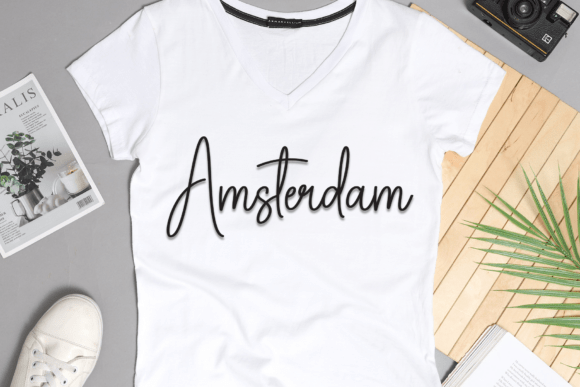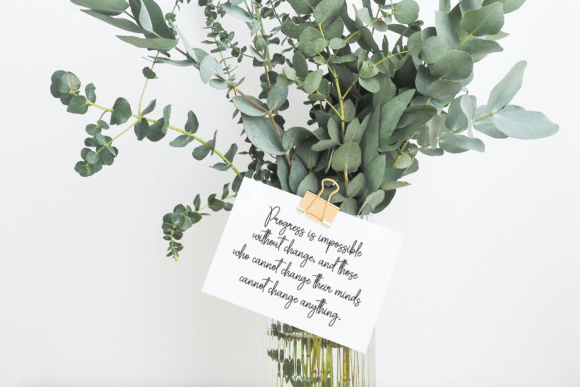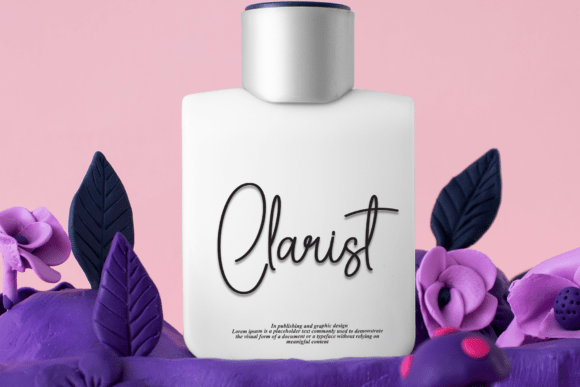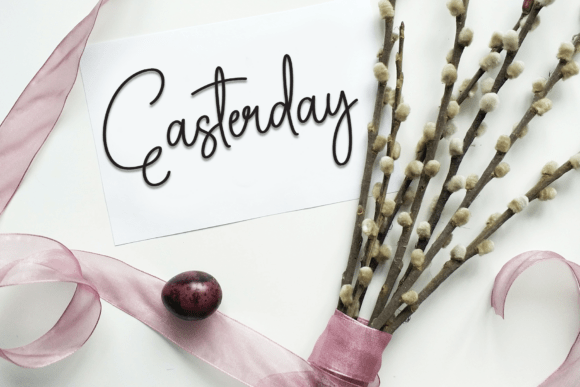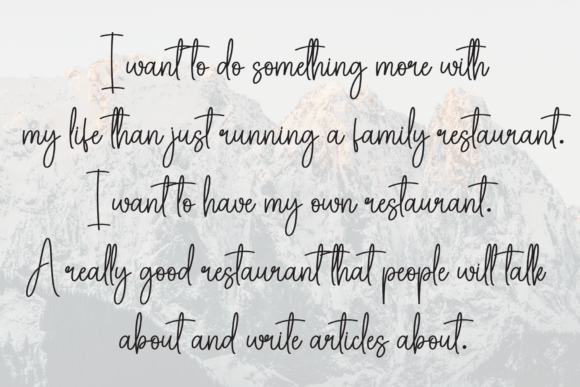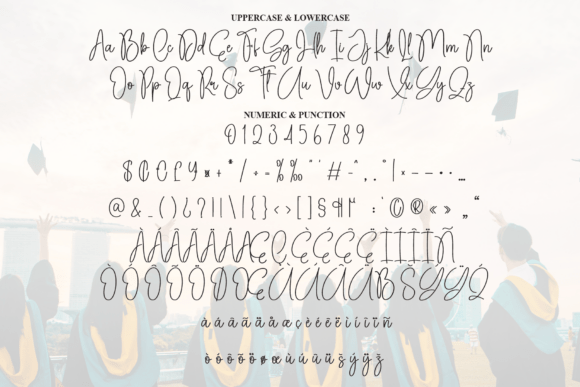
The Graduation Font: Elevate Your Designs with Elegance
Have you ever been working on a design project, and suddenly, you’re stuck on finding the perfect font? I recall a wedding invitation project where I spent hours searching for a font that exuded romance and sophistication. That’s when I discovered the Graduation Font, a stunning script font with swashes that instantly elevated my design game.
A Personal Review: What I Love and What to Watch Out For
- 💫 Elegant and flowing script with beautiful beginning and ending swashes
- 🎉 Perfect for romantic and luxurious visuals, such as wedding invitations and branding projects
- 👍 Highly versatile and works well for social media graphics, handwritten quotes, and more
- 💥 Adds an extra flourish to any design with its unique swashes
- 🤔 Some swashes might not work well with certain sentence structures or word combinations
- ⚠️ Limited use for body text or long-form content due to its decorative nature
The Story Behind Graduation Font: Designer Inspiration
The Graduation Font was designed with romance and luxury in mind. Its creator, a talented typographer, aimed to craft a font that would evoke emotions and add a touch of sophistication to any design. With its beautiful swashes and flowing script, Graduation Font is perfect for designers and crafters looking to create stunning visuals.
Q: What type of projects is Graduation Font best suited for?
A: Graduation Font is perfect for romantic and luxurious projects, such as wedding invitations, branding projects, social media graphics, and handwritten quotes.
Q: Can I use Graduation Font for body text or long-form content?
A: While Graduation Font is a beautiful font, it’s not ideal for body text or long-form content due to its decorative nature. It’s best used for headlines, titles, or short paragraphs.
Q: Does Graduation Font come with OpenType features?
A: Yes, Graduation Font comes with OpenType features, including swashes, stylistic alternates, and glyphs, which can be accessed in compatible design software.